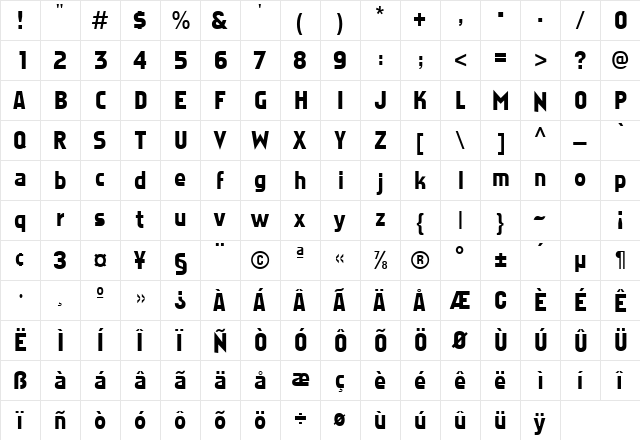
Stare 1 Regular
Design Context for Stare 1 Typeface
Stare 1 offers clean, dependable letterforms without strong stylistic allegiance, making it a practical choice for designers who need flexibility.
Pro Tip: Use Stare 1 in both headline and body roles to test its range before committing to a single application.